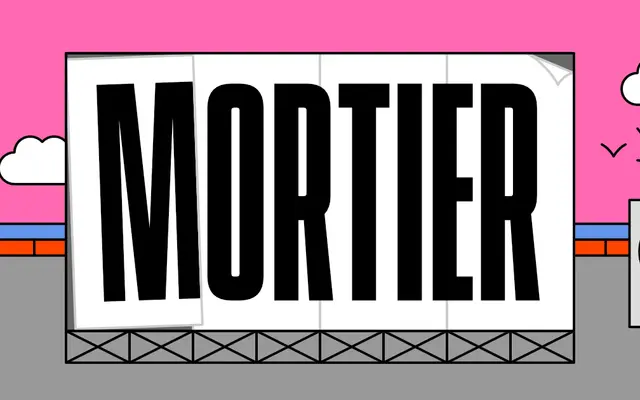
Mortier
A two-style display family drawn from the squat, brick-guided letterforms of hand-painted wall advertisements and ghost signs.
Designed by Alexandre Saumier Demers, Mortier takes its cue from pre-digital sign painters who used brick courses as a grid for scale and spacing, producing rounded-rectangular forms that suited the physical constraints of working at height on masonry. The family comes in two extremes: Slim compresses words horizontally while Jumbo stretches them wide, and the two are designed to work in combination. Typical applications are price tags, posters and any setting where vintage commercial lettering is the reference.
Mortier is a display face derived from hand-painted wall advertising and ghost sign lettering traditions, with squat, rounded-rectangular letterforms that are entirely decorative in function and unsuitable for running text.